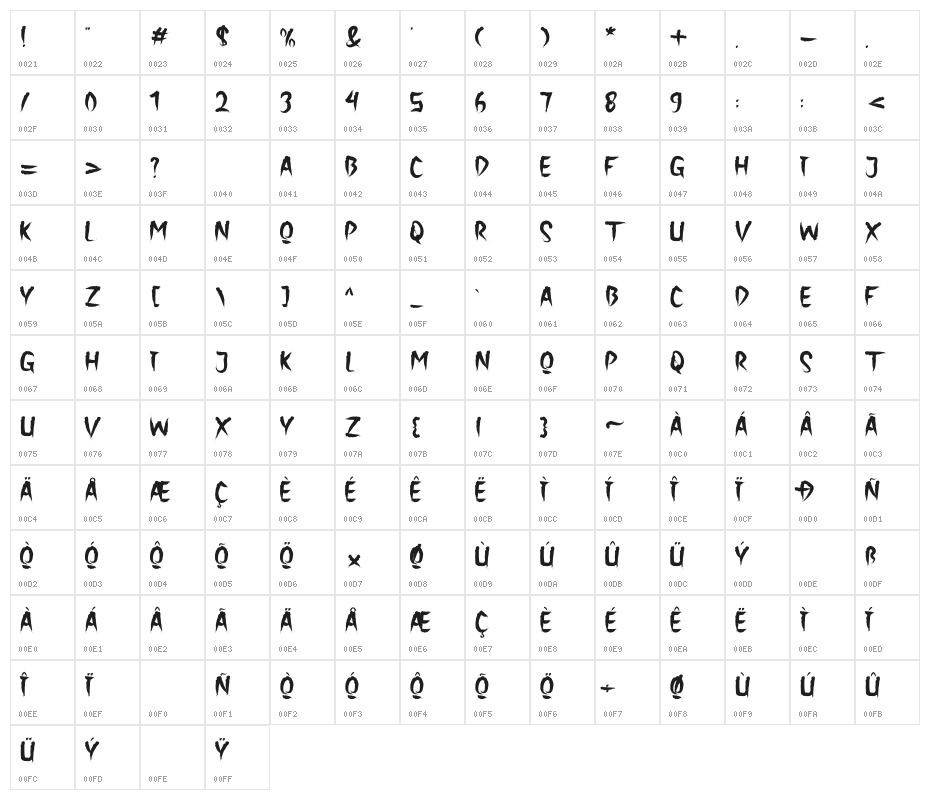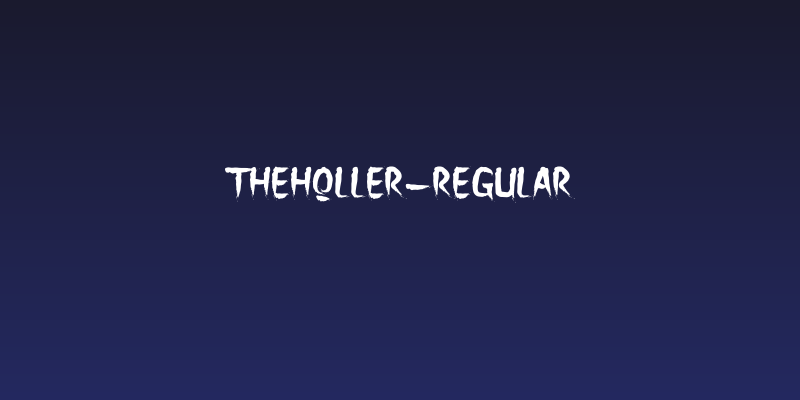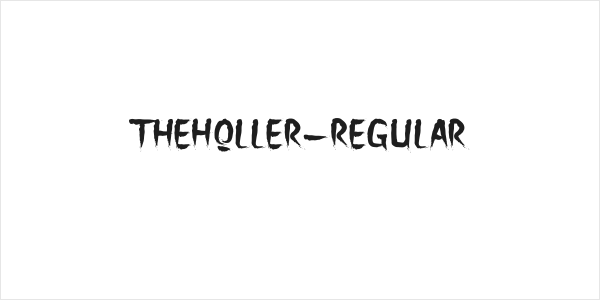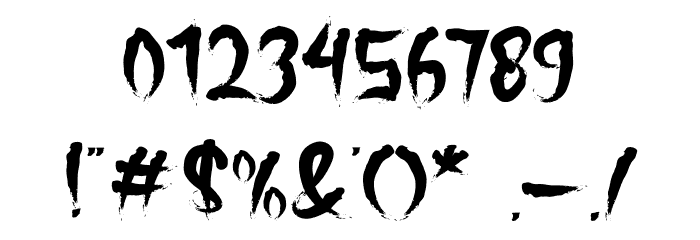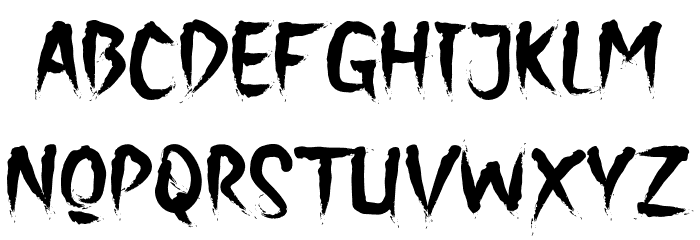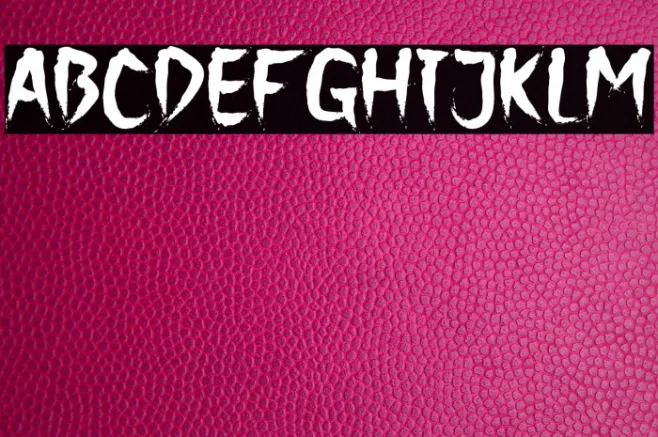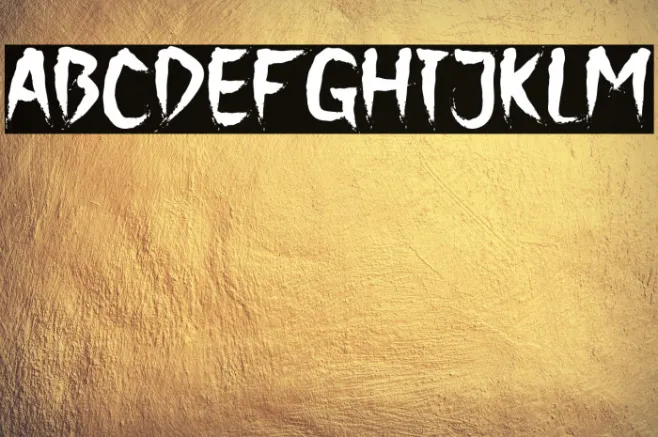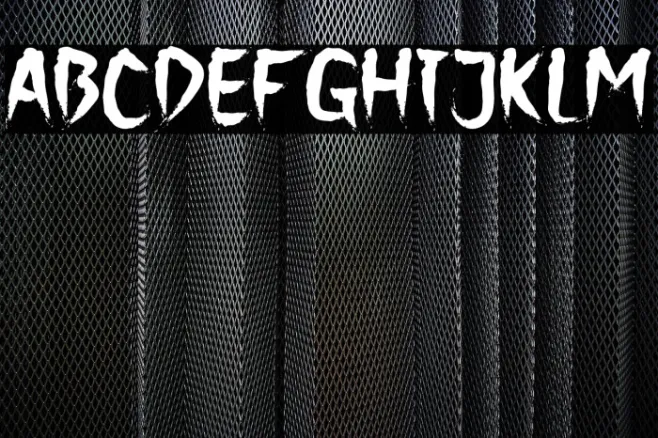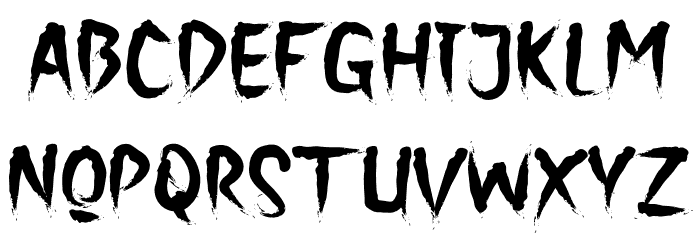
TheHoller-Regular Font
TheHoller-Regular Description
This font exhibits a bold and expressive style, characterized by its brush-like strokes and dynamic appearance. The letters have a hand-painted quality, with irregular edges and varying stroke thickness, giving it a raw and energetic feel. The uppercase and lowercase letters maintain a consistent style, with a slightly aggressive and rebellious tone. The numbers and special characters follow the same aesthetic, ensuring a cohesive look across all elements. This font is ideal for projects that require a strong visual impact and a sense of movement.
| Overall Style | Modern, Artistic |
| Proposed Projects | Ideal for posters, album covers, branding for edgy or artistic products, and any design needing a bold statement. |